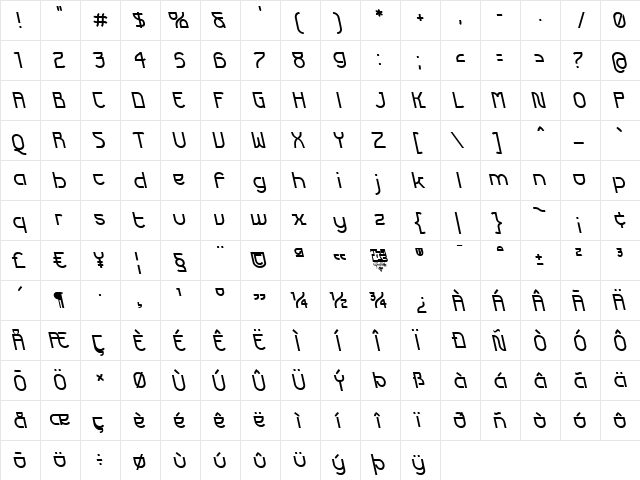
Back to the Futurex Regular
Design Context for Back to the Futurex Typeface
Back to the Futurex channels digital-age aesthetics through its sharp, structured letterforms — ideal for brands that want to signal innovation.
Pro Tip: Use Back to the Futurex in combination with a neutral sans for body text. Let it define the brand voice in headlines while keeping reading comfortable elsewhere.